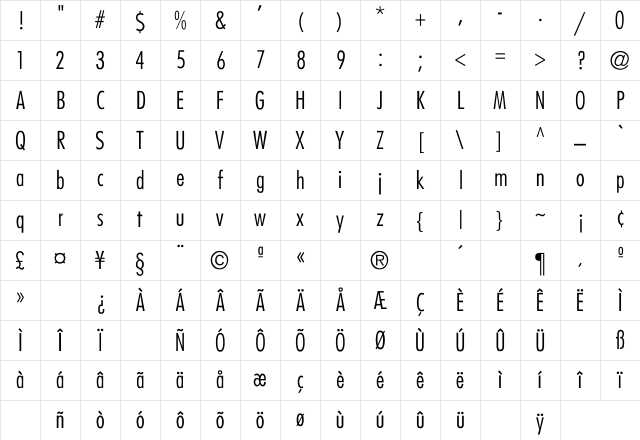
Futura-CondensedLight-Normal Regular
Design Context for Futura-CondensedLight-Normal
Futura-CondensedLight-Normal has a distinctly futuristic character, with geometric precision and clean angles that feel at home in technology, gaming, and sci-fi contexts. Its slender proportions lend an understated elegance to any composition. Its narrow stance lets it pack a punch even in space-constrained designs.